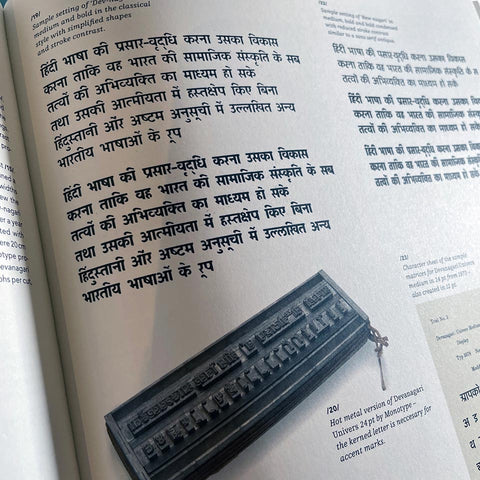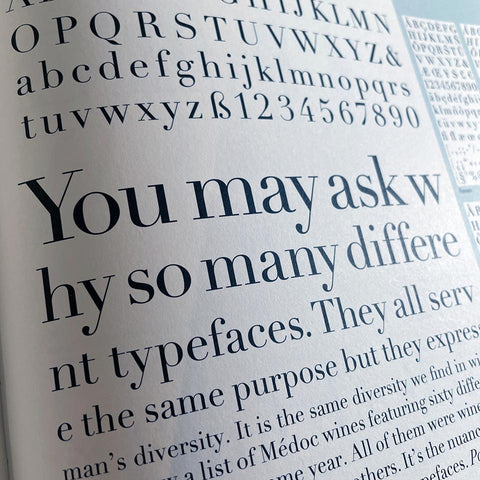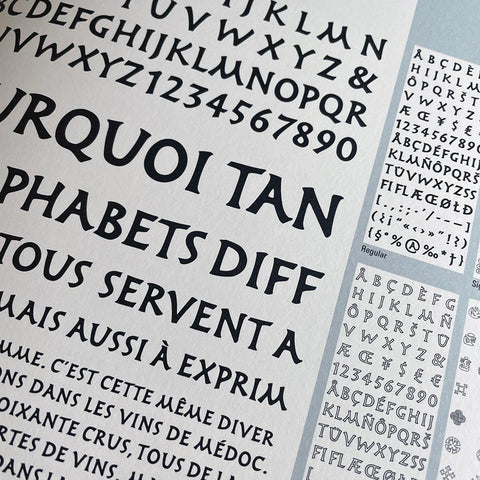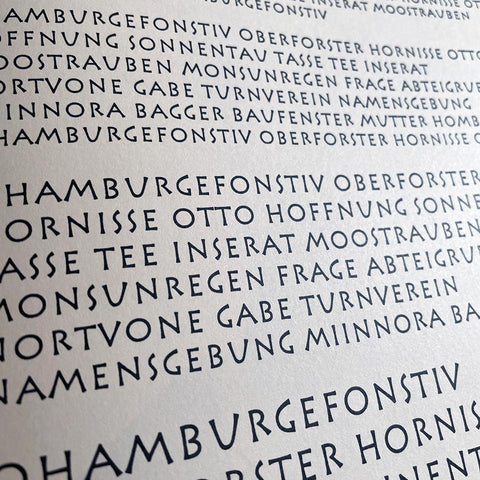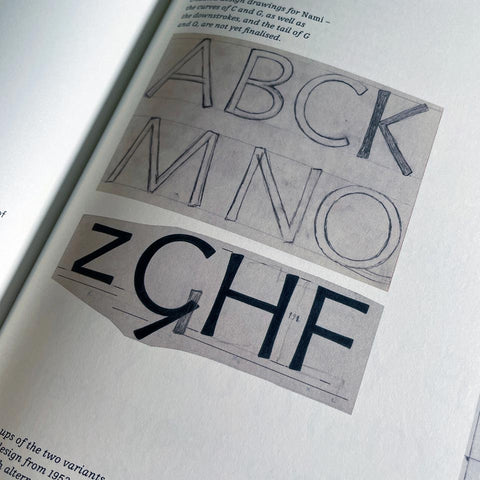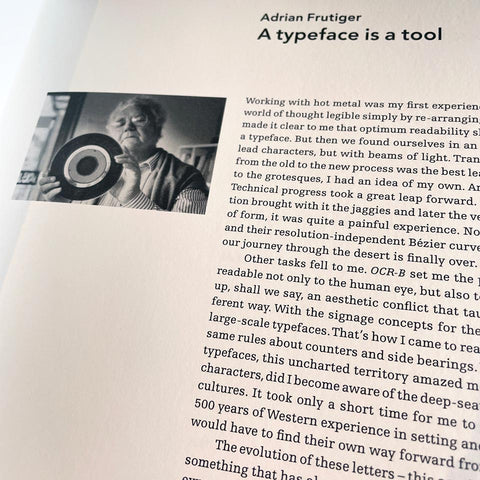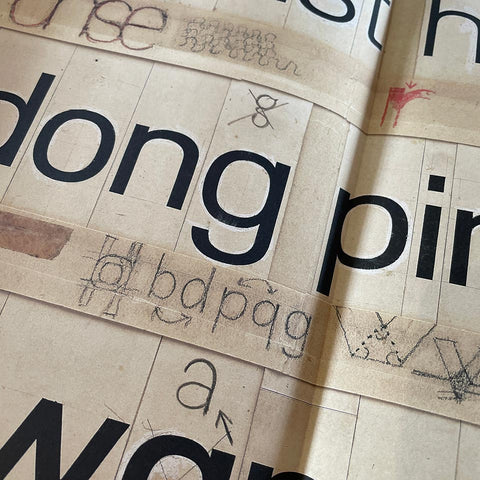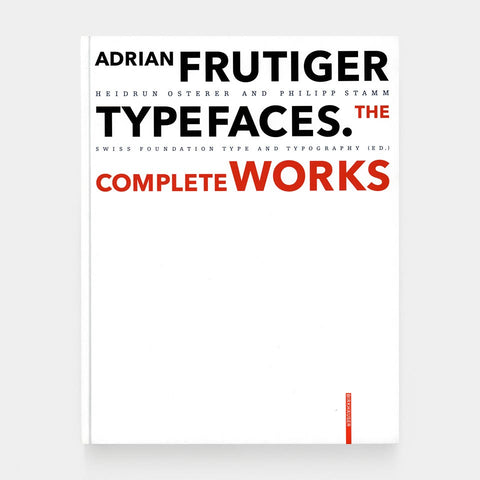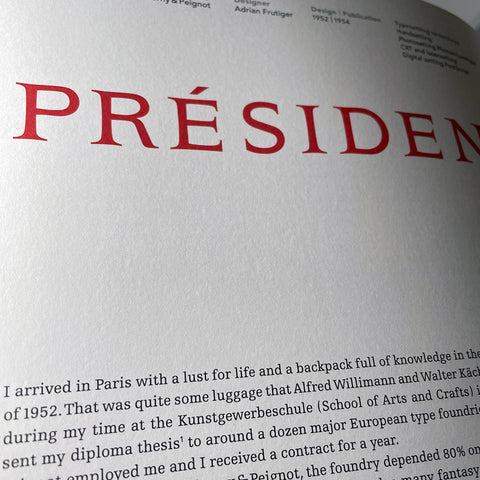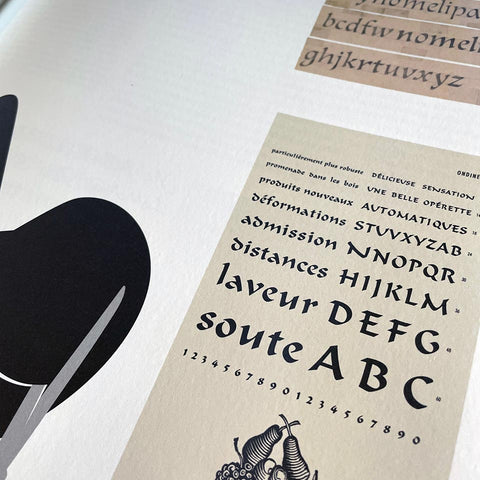
Adrian Frutiger Typefaces: The Complete Works
This is the third edition of an imposing book. As we flipped through it just now we thought, We need to get reacquainted with this one. Holy cow, this is good. Why? Because Adrian Frutiger decisively influenced the international creation of typefaces after 1950. His Univers typeface and the machine-readable font OCR-B are milestones, as is his type for the Paris airports, which evolved into the Frutiger typeface. All set new standards for signage types. In all, he created some fifty types, including Ondine, Méridien, Avenir, and Vectora. This is a remarkable and varied body of work, intelligently arranged here into one impressive volume. A total must.